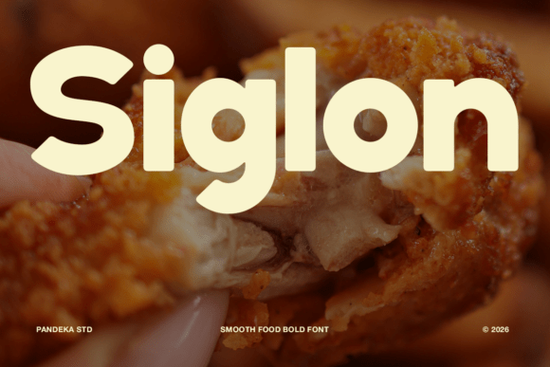
Siglon Font is a standout choice for anyone looking to add a dynamic and eye-catching element to their food-related designs. This bold, rounded display font is specifically crafted to convey energy and flavor, making it ideal for fast food branding, snack packaging, and restaurant menus. Its modern, playful style ensures that it stands out without sacrificing readability, which is crucial for any design that needs to communicate clearly at a glance.
Whether you're working on a new restaurant identity or designing promotional materials for a food business, Siglon Font can help you make a strong visual statement. The thick letterforms give it a sense of weight and presence, while the rounded edges add a friendly and approachable feel. This combination makes it versatile enough to work in both digital and print formats, from social media posts to signage and posters.
Why Choose Siglon Font for Food Branding?
Siglon Font is particularly well-suited for food-related projects because of its ability to capture attention quickly. In a world where first impressions matter, having a font that immediately communicates the essence of your brand can be a game-changer. Its thick, rounded letters create a sense of warmth and familiarity, which is perfect for businesses in the food industry.
Designers and small business owners often look for fonts that are both functional and visually appealing. Siglon Font checks both boxes. It’s easy to read even at smaller sizes, which is important for things like menu boards or product labels. At the same time, its bold style ensures that it doesn’t get lost in a crowded design layout.
How to Use Siglon Font in Different Projects
One of the great things about Siglon Font is its versatility. It works well in a variety of design contexts, including:
- Fast food branding – For logos, banners, and signage that need to grab attention quickly.
- Snack packaging – To add a fun and recognizable element to product labels and wrappers.
- Restaurant menus – For headings and special offers that stand out on the page.
- Social media campaigns – To create eye-catching graphics that resonate with food lovers.
Its modern aesthetic also makes it a good fit for digital marketing efforts, such as Instagram posts, Facebook ads, and email newsletters. When used effectively, Siglon Font can help your brand stand out in a competitive space.
Other Fonts That Complement Siglon Font
If you’re looking for more options to enhance your design toolkit, consider exploring other fonts that pair well with Siglon Font. Simple Valentine Font offers a clean and elegant alternative, while still maintaining a playful tone. These fonts can be used together to create a cohesive and visually interesting design scheme.
When selecting a font for your project, it's important to consider how it will be used and what message it needs to convey. Siglon Font is an excellent choice when you want to communicate energy, flavor, and a modern sensibility. Its bold appearance and clear legibility make it a reliable option for a wide range of food-related design applications.
As you experiment with different fonts, keep in mind that the right choice can significantly impact the overall look and feel of your design. Whether you're working on a personal project or a professional campaign, taking the time to find the perfect font can make all the difference.
Before finalizing your design, test Siglon Font in different sizes and contexts to ensure it meets your needs. If you're unsure about how it will look in a specific setting, try using it in a mock-up or prototype to get a better sense of its performance.
By choosing the right font, you can elevate your design and create a more engaging experience for your audience. Siglon Font is a powerful tool that can help you achieve this goal, especially in the food and beverage industry.
Remember to always consider the purpose of your design and the message you want to convey. With the right font, you can make a lasting impression and connect with your audience in a meaningful way.